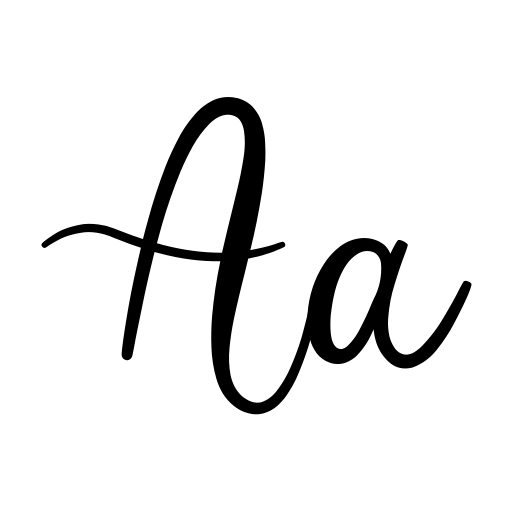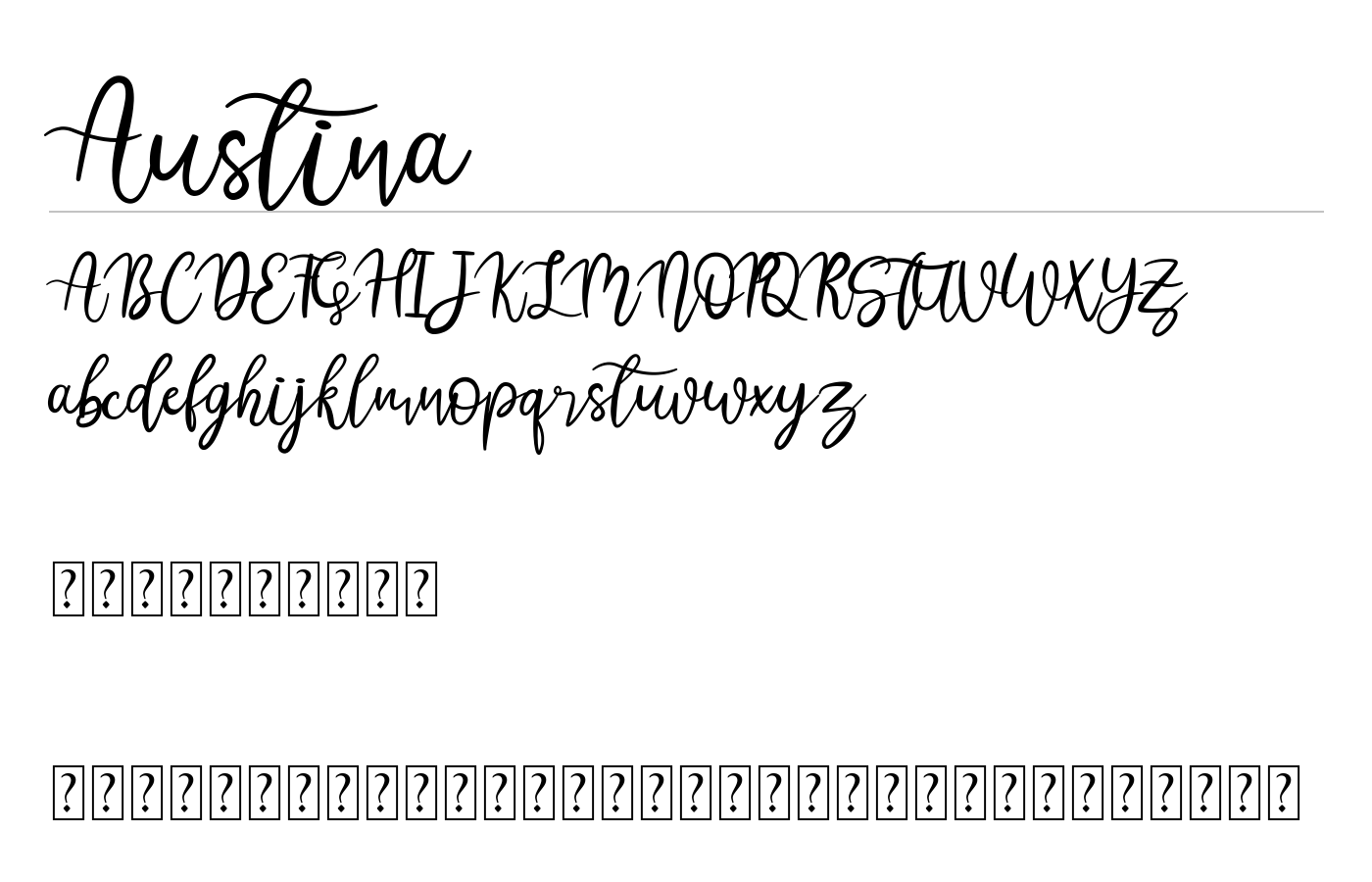
Austina is a delicate and elegant script font featuring flowing, hand-drawn letterforms with smooth curves and a casual yet refined style. Its slender weight and slightly condensed structure make it ideal for romantic, feminine designs such as wedding invitations, branding, and greeting cards where a personal and graceful touch is desired.
Austina Font
About Austina Font